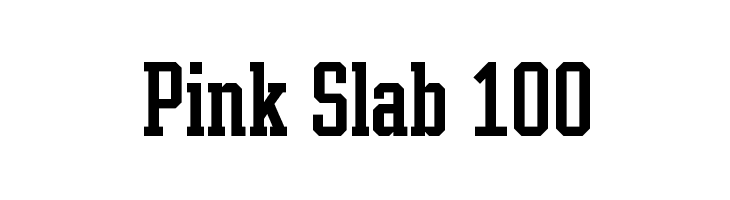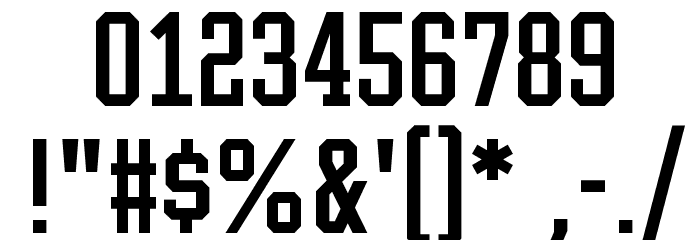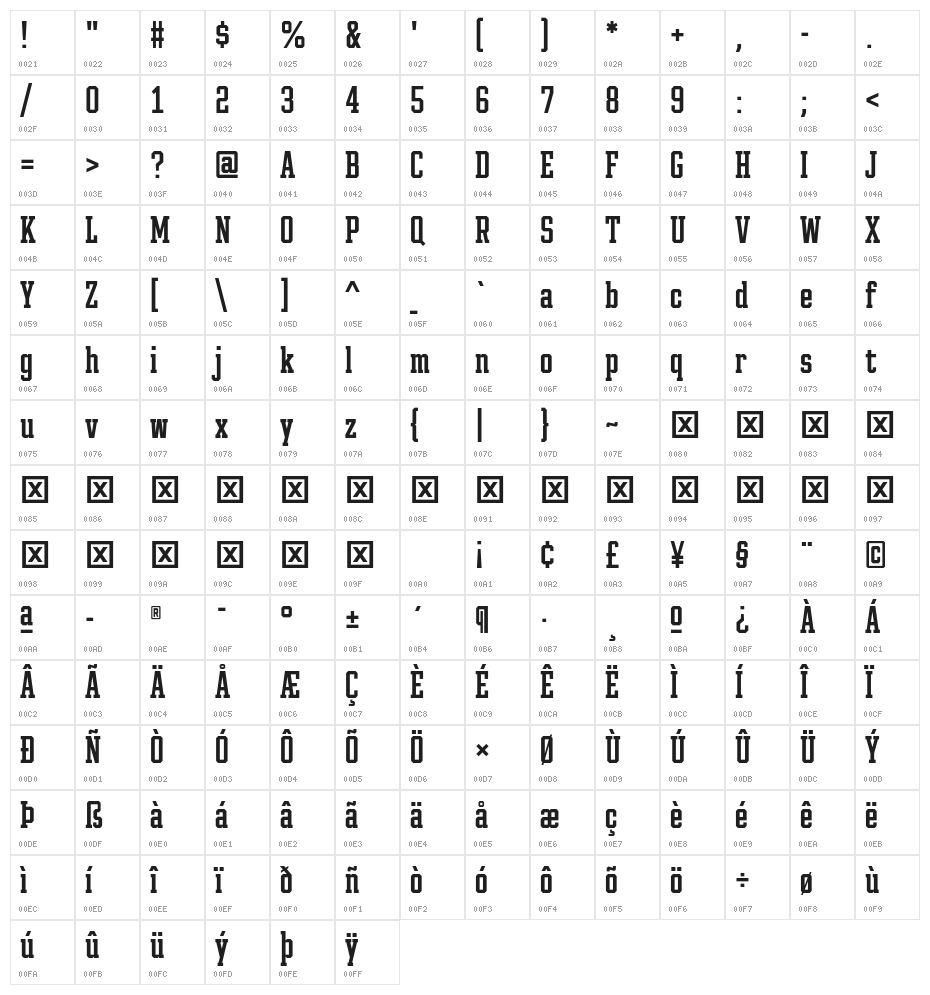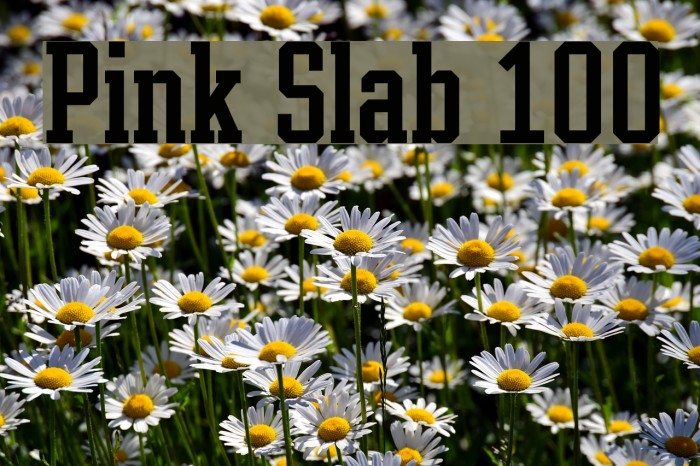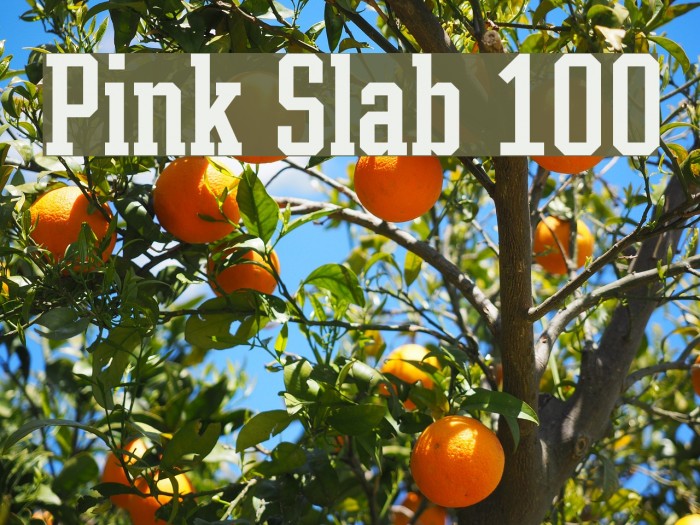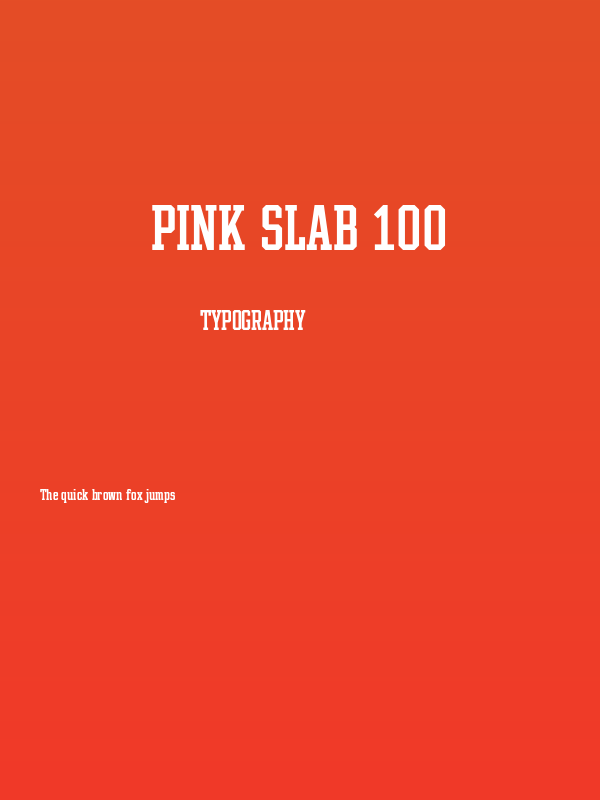
Pink Slab 100 Font
Pink Slab 100 Description
This font features a bold and robust slab serif style, characterized by thick, block-like serifs that give it a strong and impactful appearance. The uppercase letters are tall and commanding, while the lowercase letters maintain a consistent weight, providing a balanced and cohesive look. The numerals are clear and legible, matching the overall boldness of the alphabet. Special characters are designed with the same attention to detail, ensuring they integrate seamlessly with the rest of the typeface. The font's design is both modern and timeless, making it versatile for various applications.
| Proposed Projects | Ideal for headlines, posters, branding, and any project requiring a strong visual impact. |